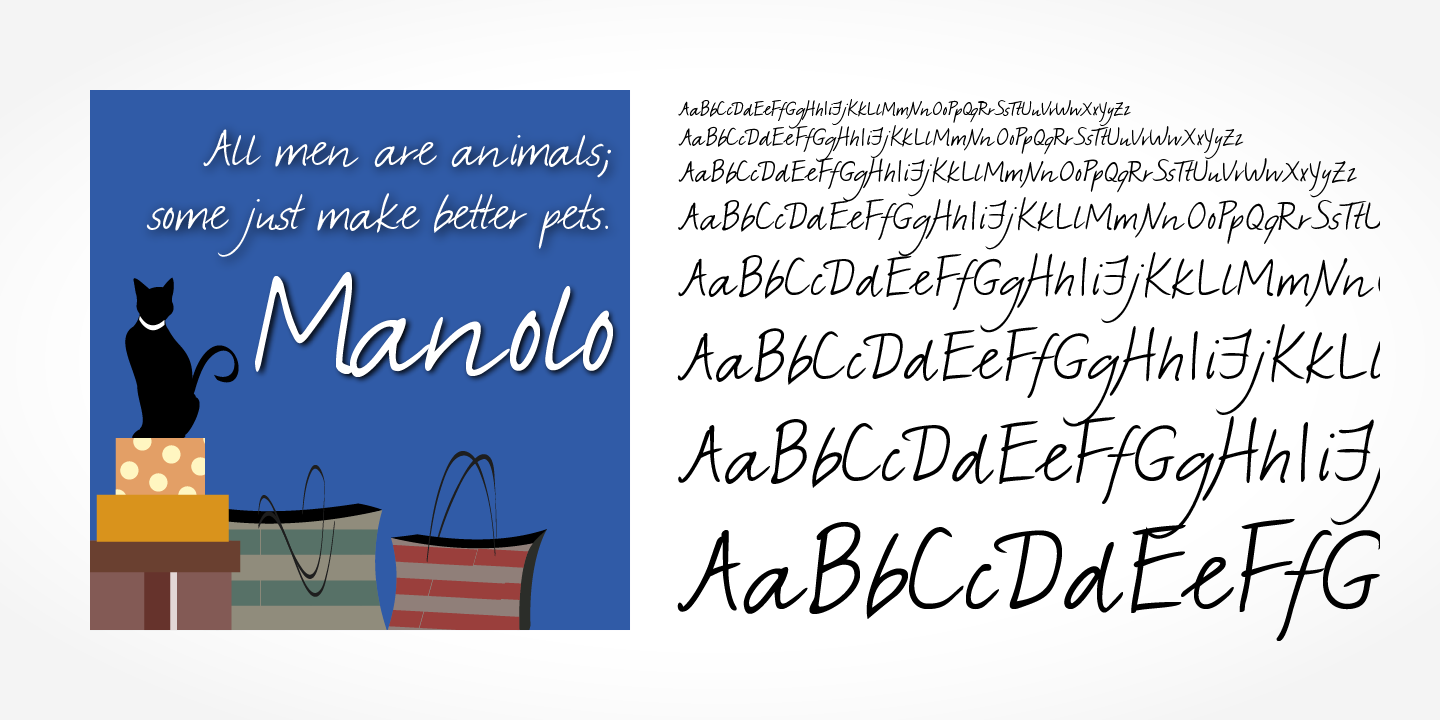
The Manolo Handwriting Font is perfect for Mediterranean restaurant menus, Spanish cultural events, Latin American heritage materials, personal travel journals, artisan food packaging, romantic love letters, handcrafted product labels, and authentic cultural celebrations. This expressive typeface works beautifully in applications where Latin warmth and personal expression need to be emphasized, making it perfect for brands that want to communicate passionate authenticity and Mediterranean charm through naturally flowing, culturally rich typography.
What makes Manolo Handwriting Font exciting is its passionate Latin character and Mediterranean warmth that captures the essence of expressive communication and cultural authenticity. The font's flowing letterforms and personal writing style create an atmosphere of heartfelt emotion and cultural pride, making it ideal for brands that want to convey the warmth of Latin culture and the beauty of personal expression. Its passionate presence ensures that every application feels personally crafted with authentic Mediterranean soul and emotional depth.
The Manolo Handwriting Font family typically includes regular and expressive handwriting variations, often featuring Latin-inspired flourishes, cultural ornaments, and passionate stroke elements that enhance its Mediterranean appeal. Many versions include accent mark support, cultural alternates, and specialized characters that provide designers with comprehensive tools for creating authentic Latin-inspired design projects with genuine cultural sophistication and personal expressiveness.
For designers working on projects that require Latin authenticity and Mediterranean credibility, Manolo Handwriting Font Free Download provides exceptional cultural appeal. Its ability to instantly communicate passion and cultural warmth makes it an invaluable choice for cultural organizations, artisan brands, and any project requiring typography that embodies the expressive beauty of Latin handwriting, the warmth of Mediterranean culture, and the passionate authenticity of personal cultural expression and heartfelt communication.